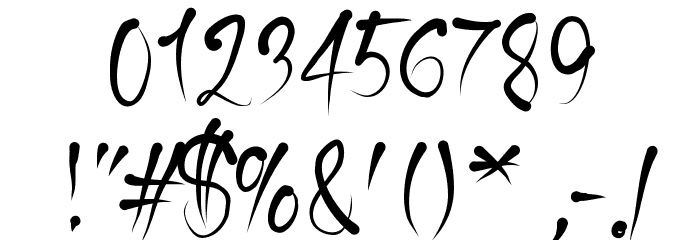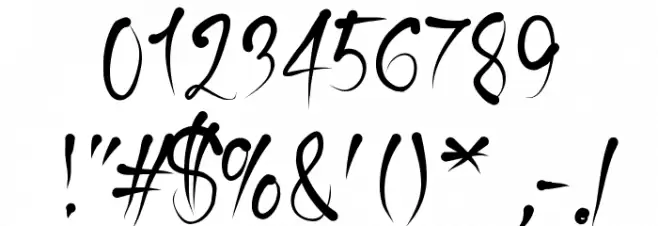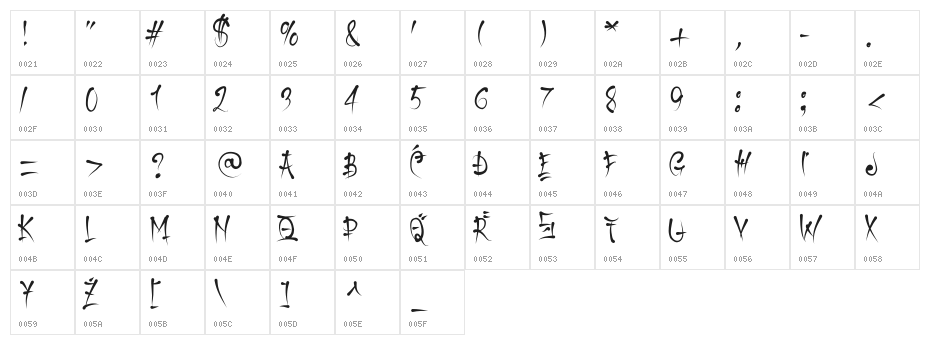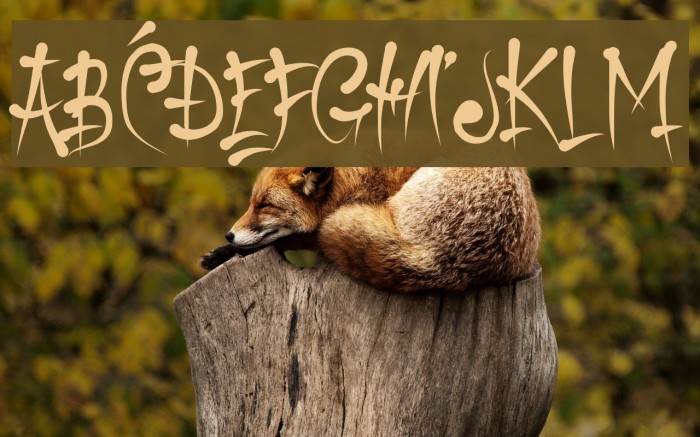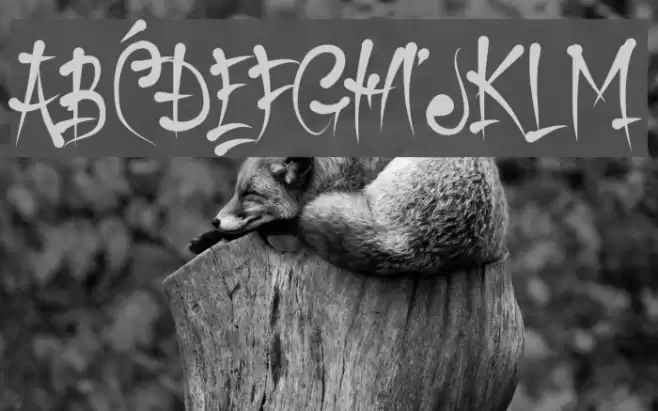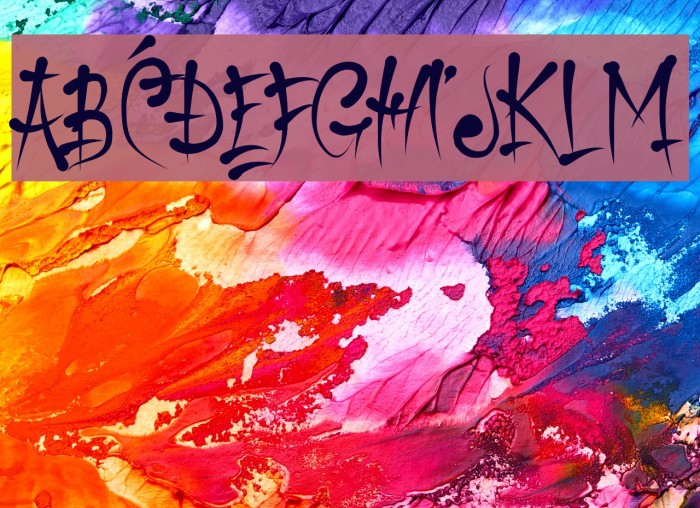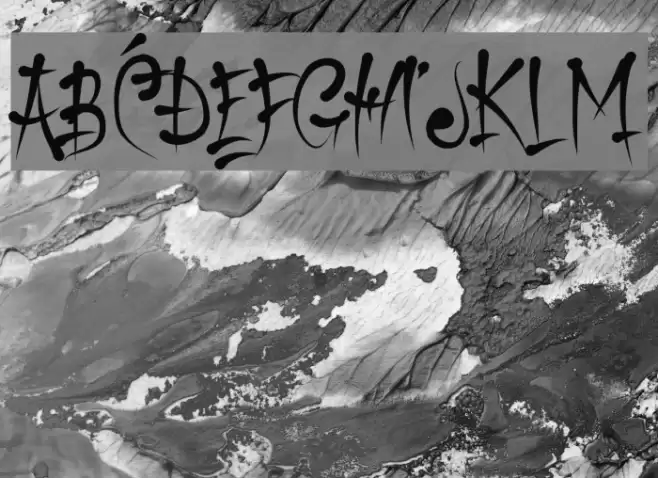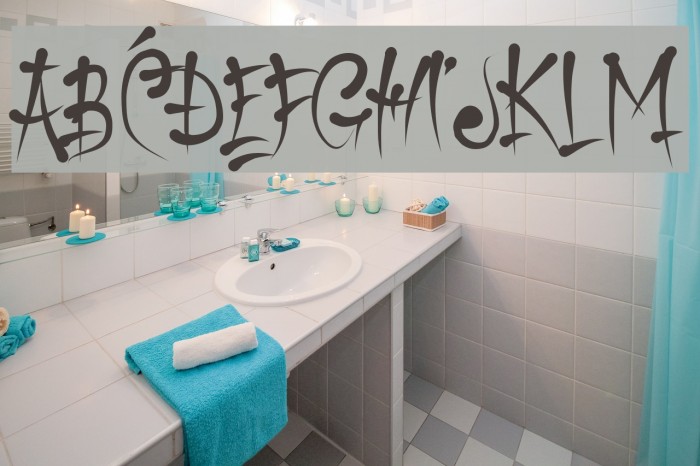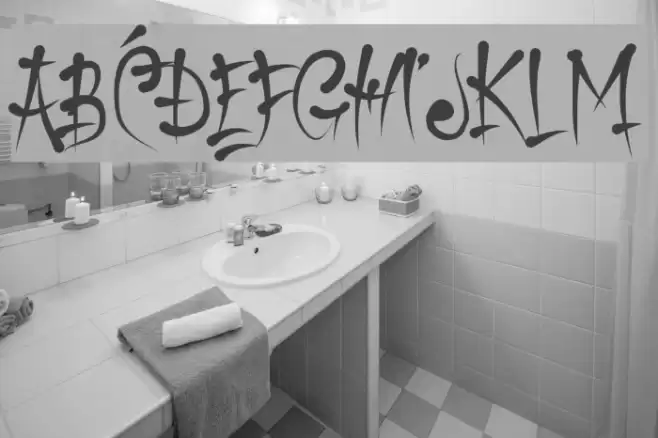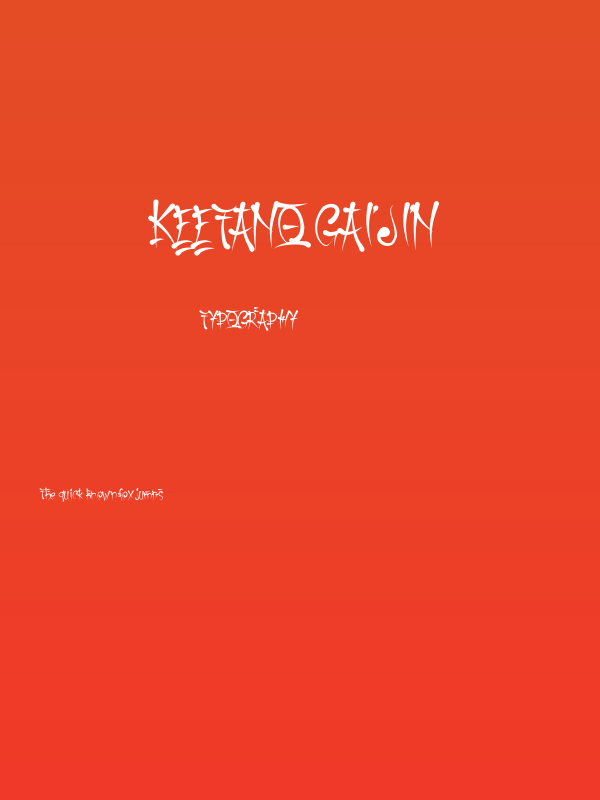
Keetano Gaijin Font
Keetano Gaijin Description
This font features a highly decorative and artistic style, characterized by its sharp, angular lines and dramatic flourishes. The letters are intricately designed with a calligraphic influence, giving them a unique and edgy appearance. The uppercase and lowercase letters maintain a consistent style, with exaggerated curves and pointed edges that create a sense of movement and energy. The numbers and special characters follow the same aesthetic, ensuring a cohesive look across all glyphs. This font is ideal for projects that require a bold and expressive typeface, such as posters, album covers, or branding for creative industries.